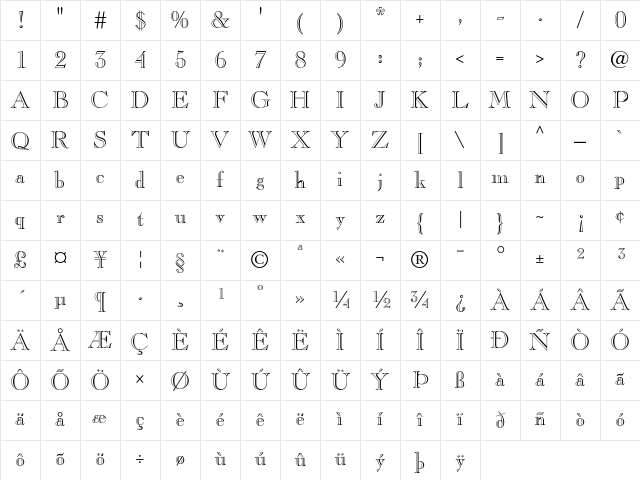
Caslon Open Face Regular
Design Context for Caslon Open Face
Caslon Open Face is a composed and adaptable typeface that performs quietly and consistently across a wide range of design contexts.